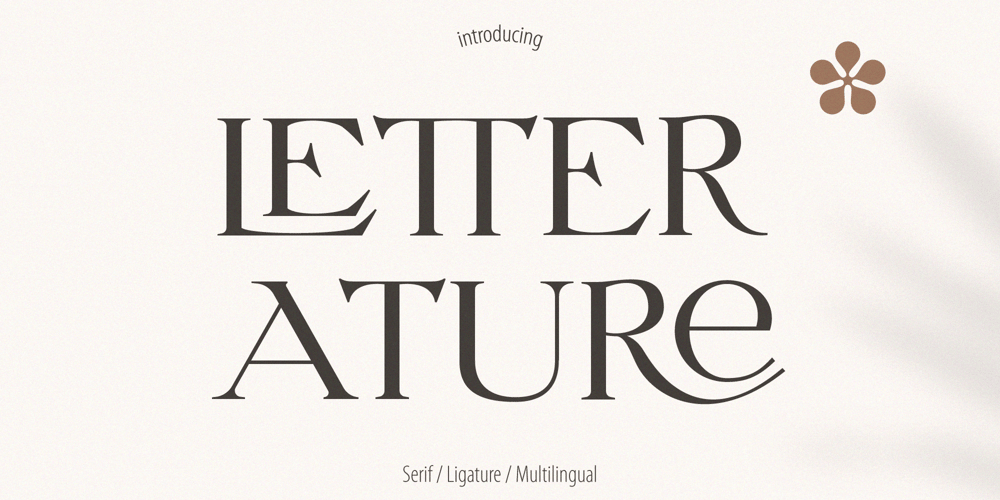
Letterature Font Family was designed by Roman Korolev and published by Kaer. Letterature contains 1 styles and family package options. Letterature is an elegant serif. I designed old-fashioned letters with playful ligatures. The font may be used for creating classical printing, logo design, clothing embroidery, product packaging, vintage header, luxury identity, etc.What you will get:* Uppercase and lowercase* Ligatures* Multilingual support* Numbers* Symbols* PunctuationTo have a look at all the ligatures in the font you may open the glyphs panel:In Photoshop go to Window – glyphsIn Illustrator go to Type – glyphsPlease feel free to request to add characters you need: kaer.pro@gmail.com